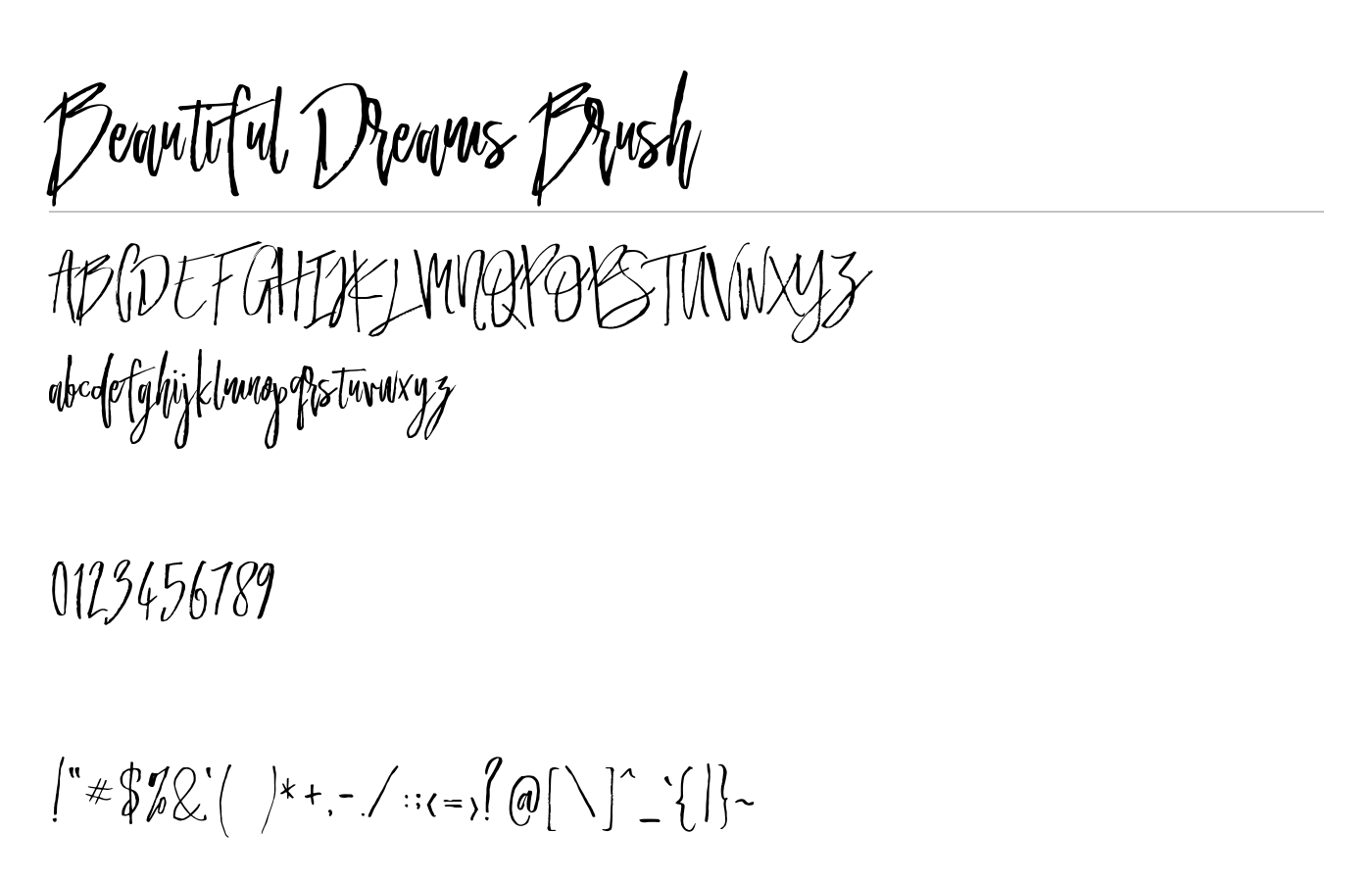
Beautiful Dreams Brush is a lively, hand-drawn brush script font with an airy, textured style that captures a natural, artistic feel. Its tall, slender letterforms with irregular strokes and playful curves make it ideal for creative branding, invitations, and expressive headlines where a personal, whimsical touch is desired. This font brings energy and charm to designs that aim for a casual yet stylish and modern hand-crafted look.
Beautiful Dreams Brush Font
About Beautiful Dreams Brush Font
| Designer | Hendra Maulia |